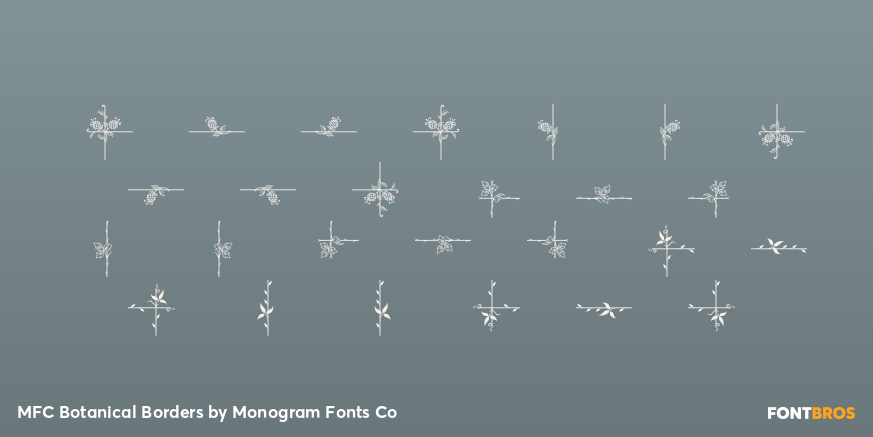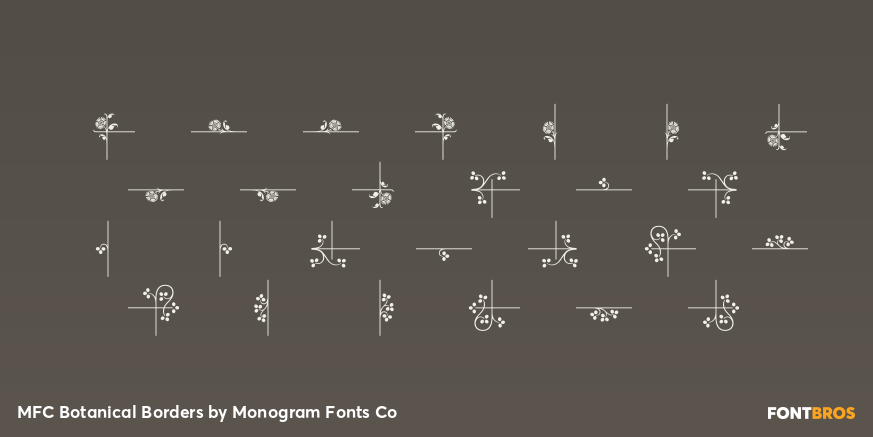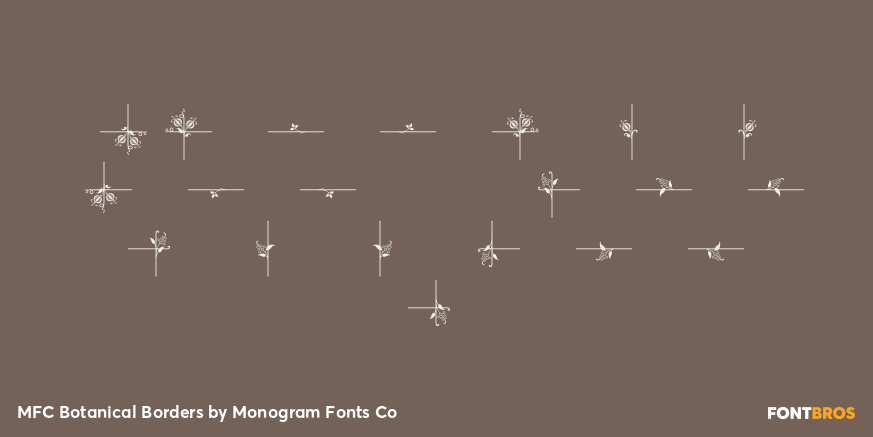
MFC Botanical Borders
Font Family by Monogram Fonts Co
The inspiration source for MFC Botanical Borders is a collection of border treatments from the 1886 ?Sp